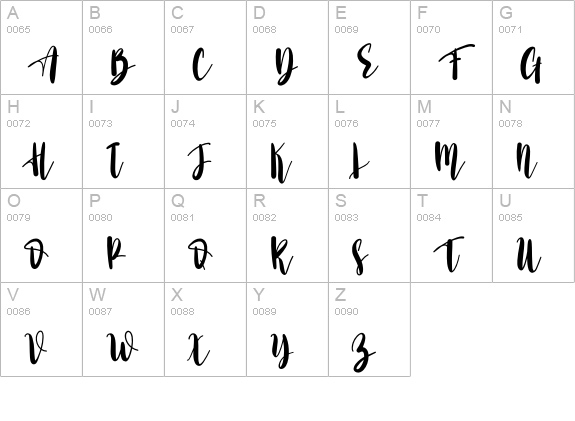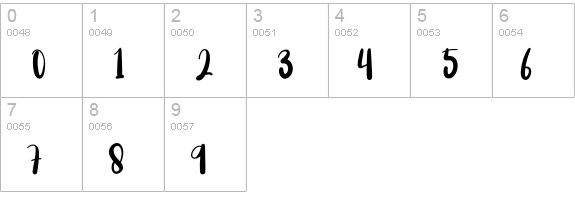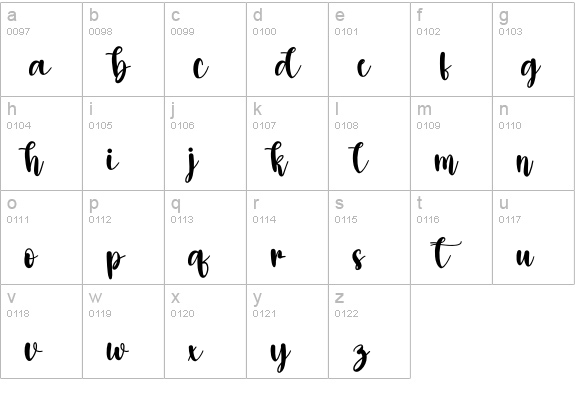
Really Font Details
Really is a free for personal use font in the Script > Handwritten category, designed by scratchones. It has been downloaded 7 times and is available for Windows, Mac and Linux.
Really font is a unique and stylish typeface that will make your designs stand out. With its modern and sleek appearance, Really font is perfect for a wide range of projects, from branding to editorial design. The clean lines and elegant curves of this font will give your text a sophisticated and professional look.